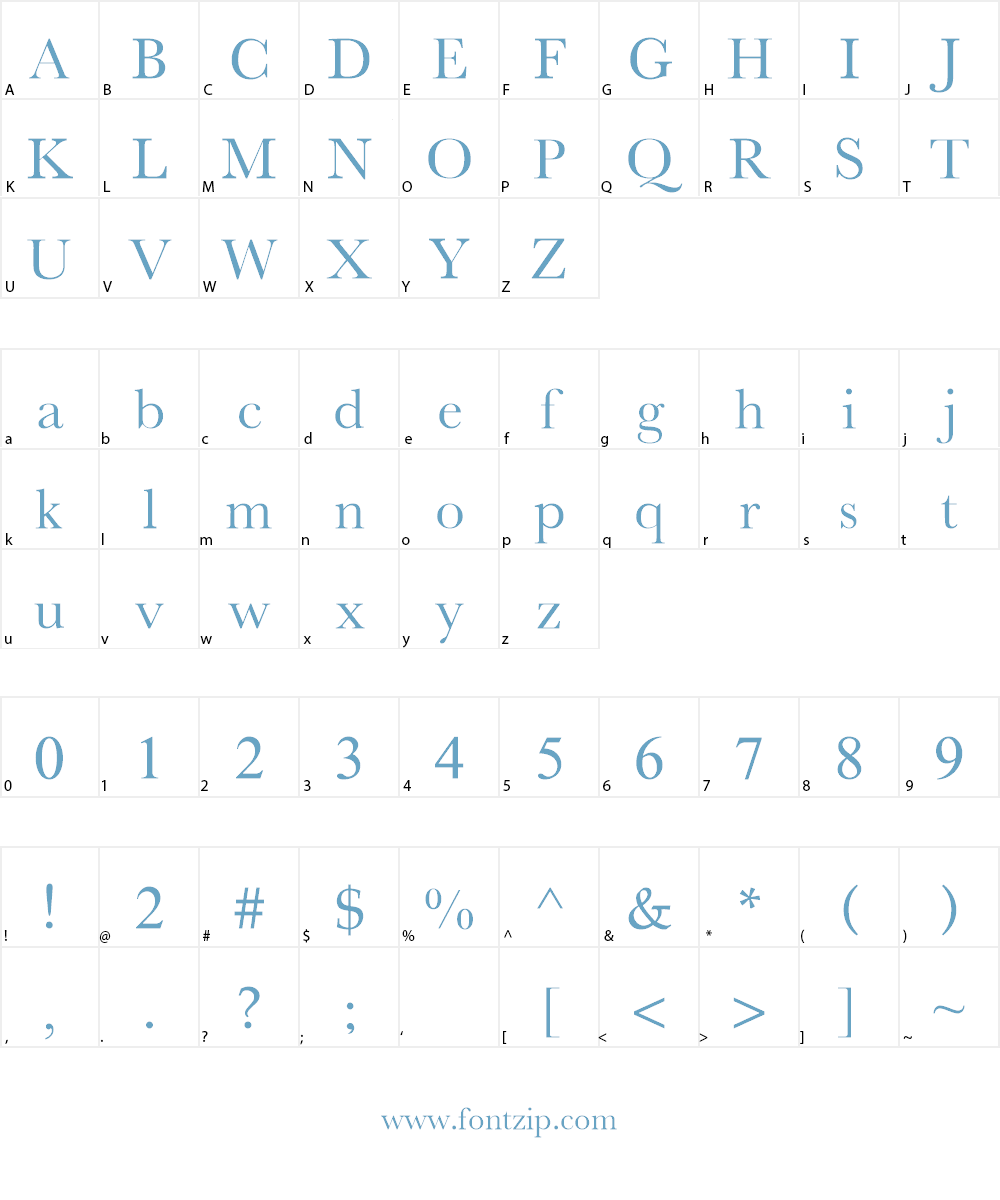
New Athena Unicode is a freeware multilingual font distributed by the American Philological Association. It follows the latest version (5.1) of the Unicode standard and includes characters for English and Western European languages, polytonic Greek, Coptic, Old Italic, and Demotic Egyptian transliteration (and Arabic transliteration), as well as metrical symbols and other characters used by classical scholars. New Athena Unicode is a "smart font" that includes OpenType ligatures allowing the display of composed characters not recognized by Unicode but needed by scholars